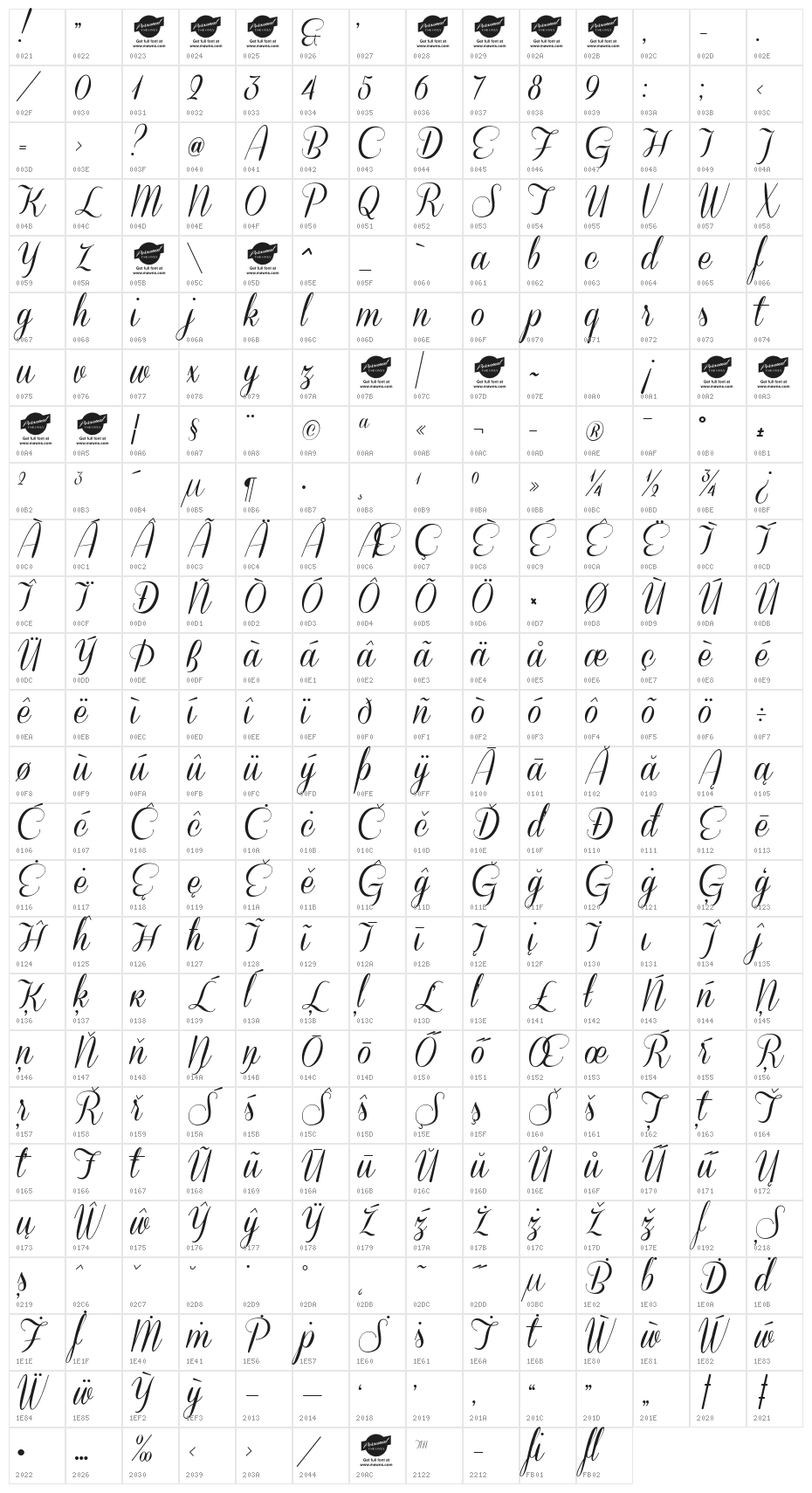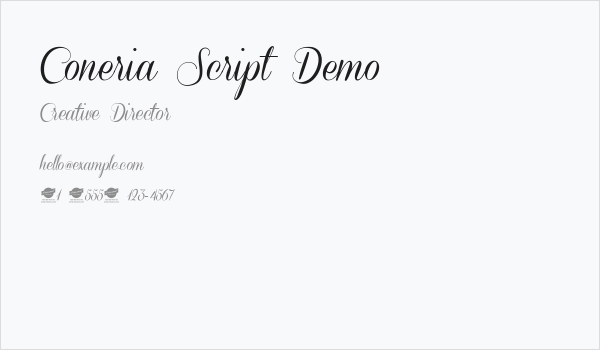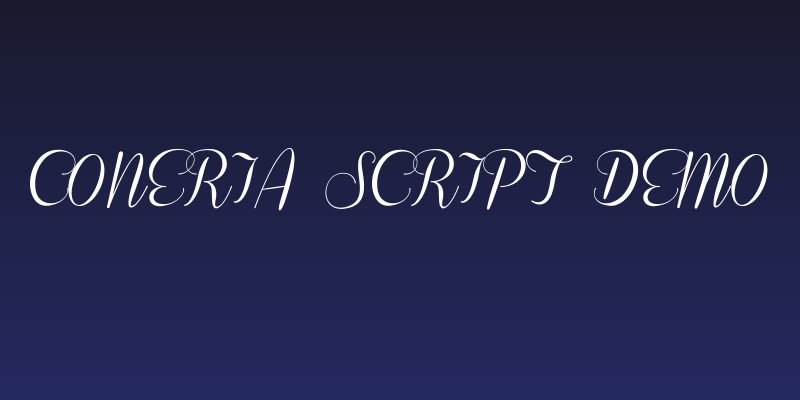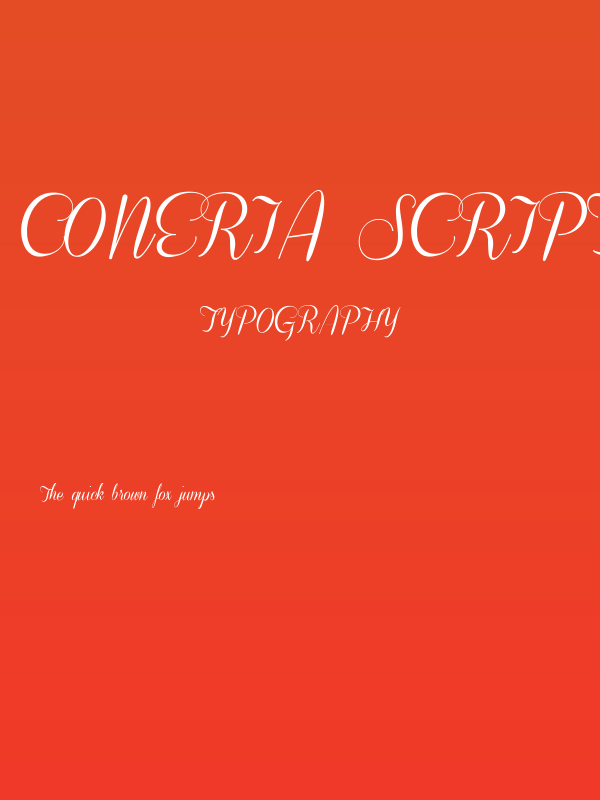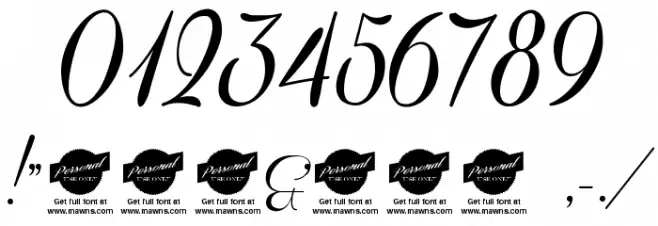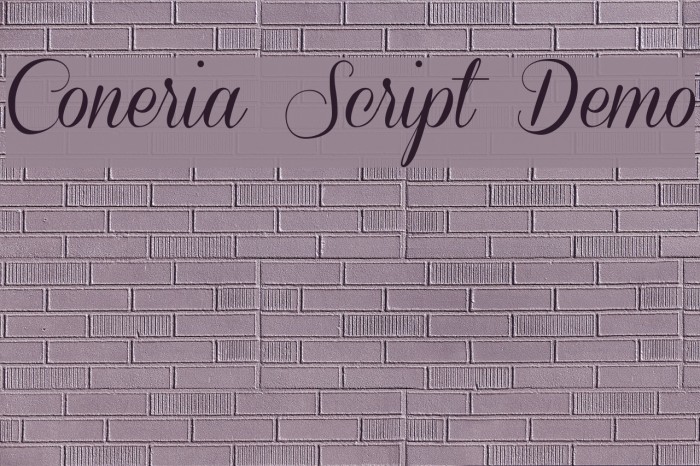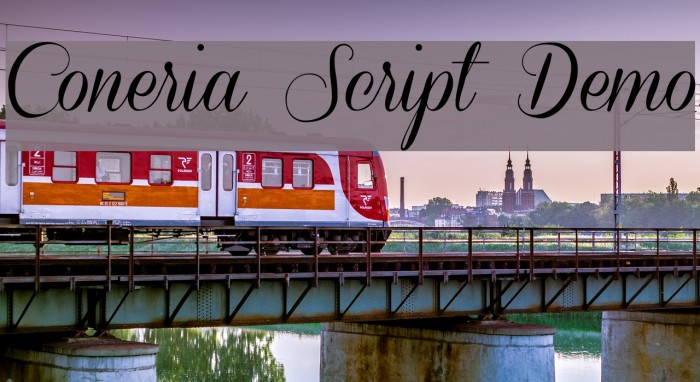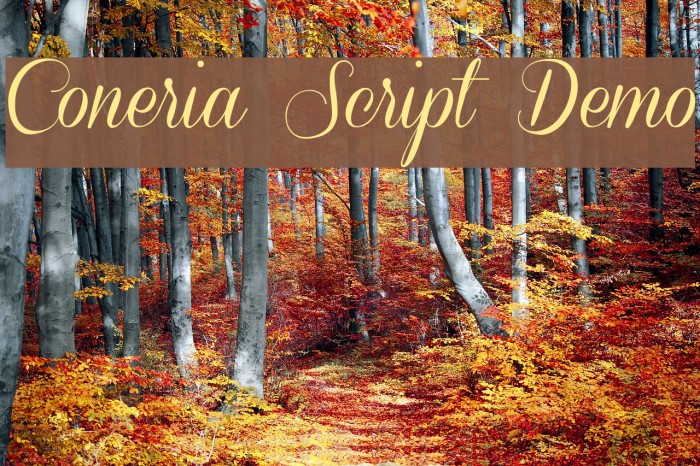
Coneria Script Demo Font
Coneria Script Demo Description
This elegant script font features flowing, interconnected letters that exude a sense of sophistication and grace. The uppercase letters are tall and slender, with delicate curves and loops that add a touch of flair. The lowercase letters maintain a consistent flow, enhancing readability while preserving the font's decorative nature. The numerals are stylishly designed, matching the overall aesthetic with their smooth curves. Special characters are thoughtfully integrated, maintaining the font's cohesive look. This font is perfect for projects that require a touch of elegance and refinement.
| Overall Style | Elegant |
| Use Case | Logos, Invitations, Decorative text |
| Proposed Projects | Ideal for wedding invitations, elegant branding, greeting cards, and high-end product packaging. |